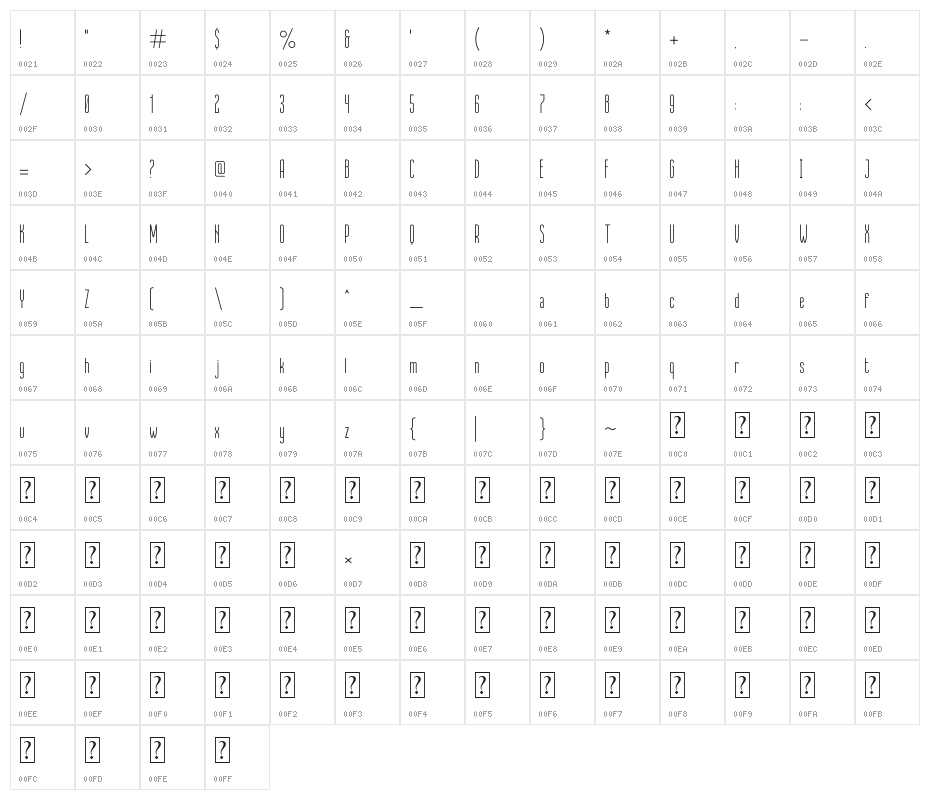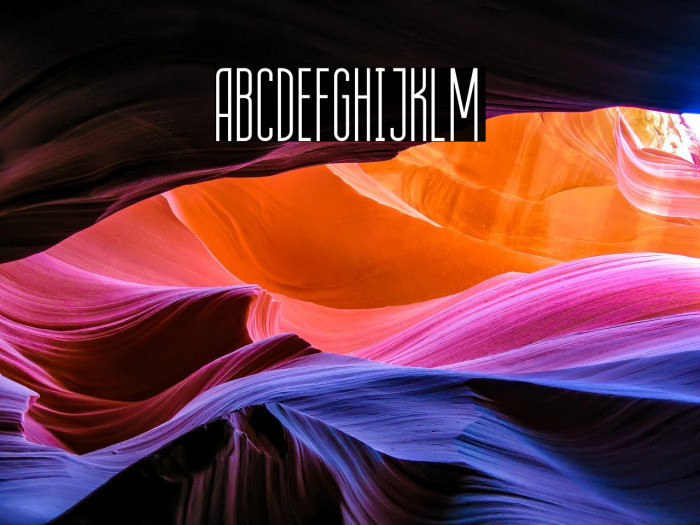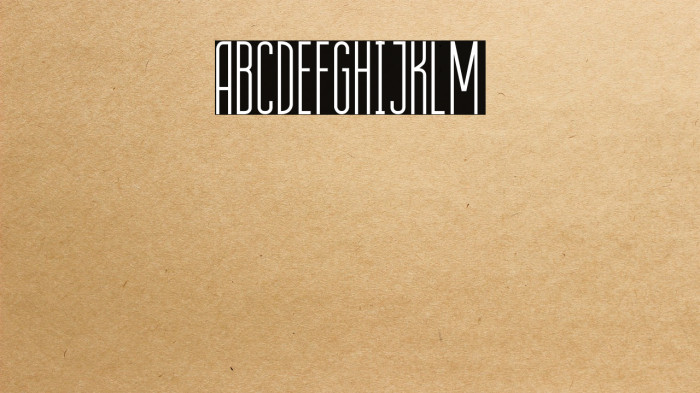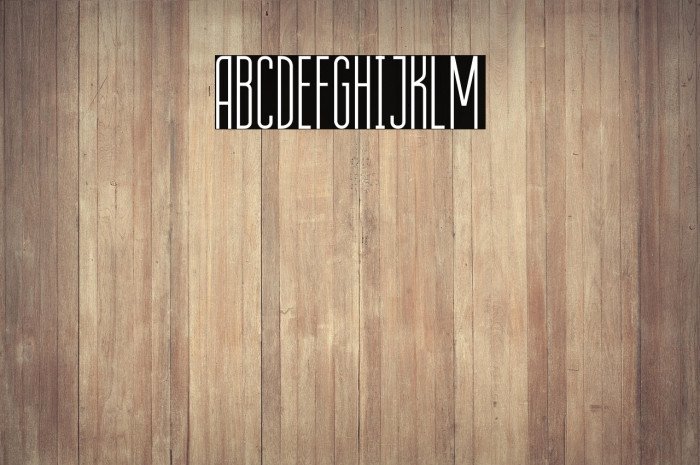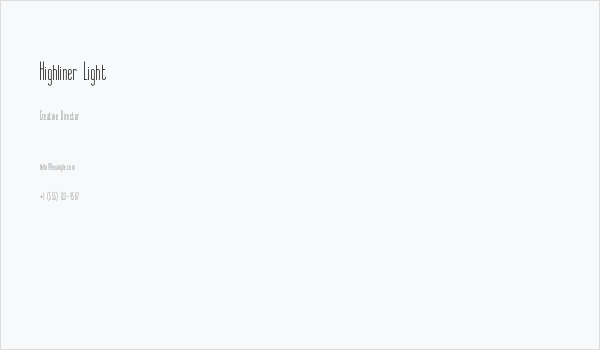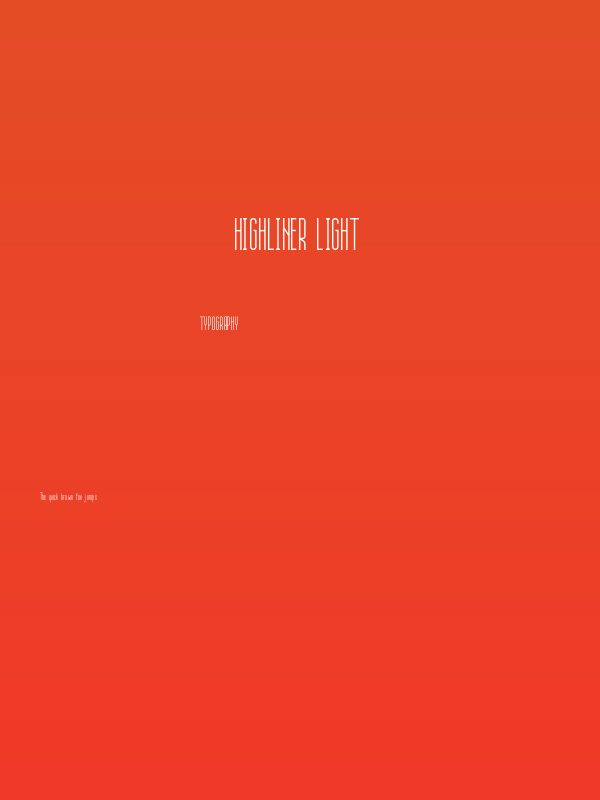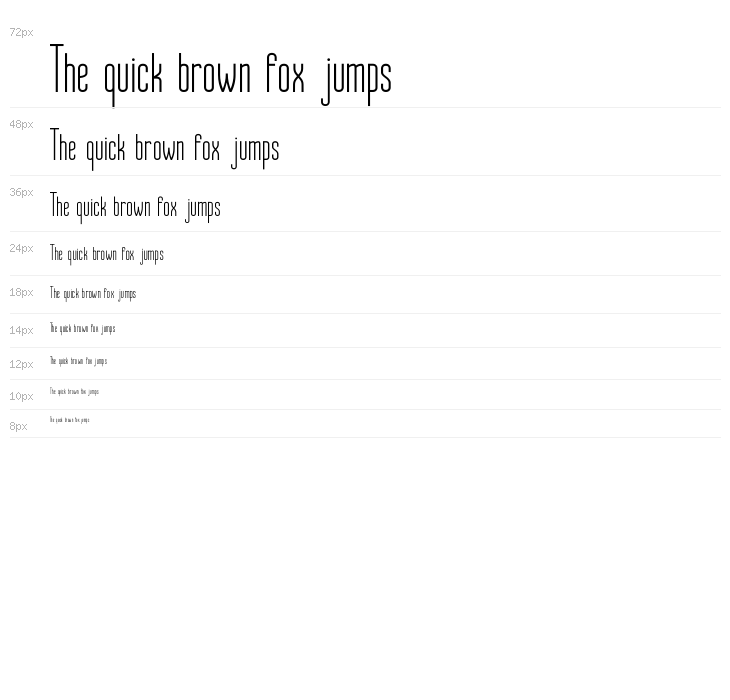
Highliner Light Font
Highliner Light Description
This font features a tall, narrow design with clean, straight lines and minimal curves, giving it a modern and sleek appearance. The uppercase letters are uniform in height, while the lowercase letters maintain a consistent baseline, enhancing readability. The numerals are distinct and align well with the overall geometric style. Special characters are crafted to match the font's linear aesthetic, making it versatile for various design needs. Its light weight and condensed form make it ideal for projects requiring a contemporary and elegant touch.
| Proposed Projects | Ideal for modern branding, minimalist posters, stylish invitations, and contemporary web design. |